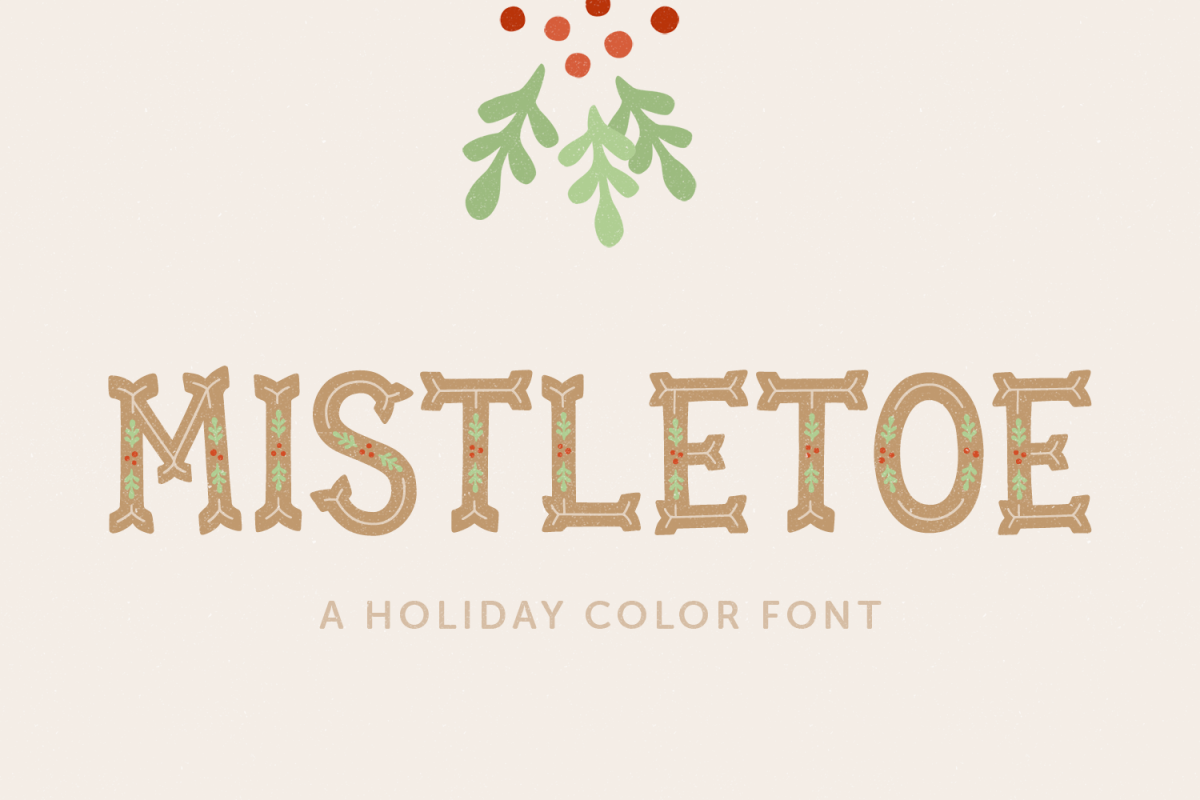
Mistletoe
Mistletoe is a mutli-colored OpenType SVG font to brighten up the holiday season. It contains hand drawn, thick serif lettering with a leaf and berry pattern inside. Since it’s an all caps font, it’s ideal for larger display blocks of text.This package includes a color version in OTF, a single color fallback option in TTF/OTF, plus a web font kit (WOFF, WOFF2) that includes both. Color fonts are supported in Illustrator CC 2018 and Photoshop CC 2017 plus Firefox and Microsoft Edge on the web.Font supports basic Latin and Western European diacritics.